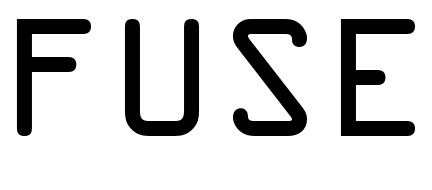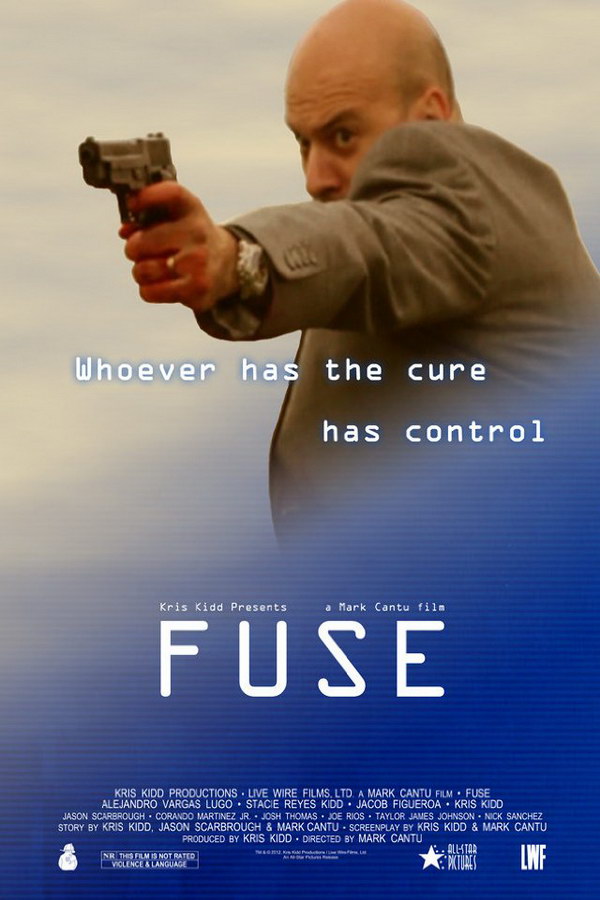
Fuse Font
ActionFuse short action movie taking place in the not-too-distant future, a virus has decimated parts of humanity, and Narcissus, a mysterious treatment, is the sole remaining source of hope.
The font used for the Fuse title in the poster is similar to OCR-A Medium. One of the earliest optical character recognition typefaces to satisfy the requirements imposed by the U.S. Bureau of Standards is OCR-A Medium, which was created by American Type Founders in 1968. More details about the typeface can be found here.